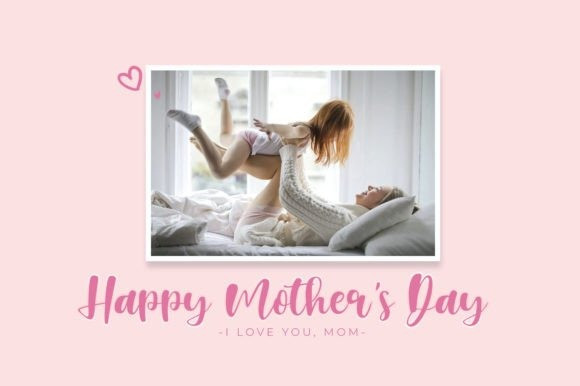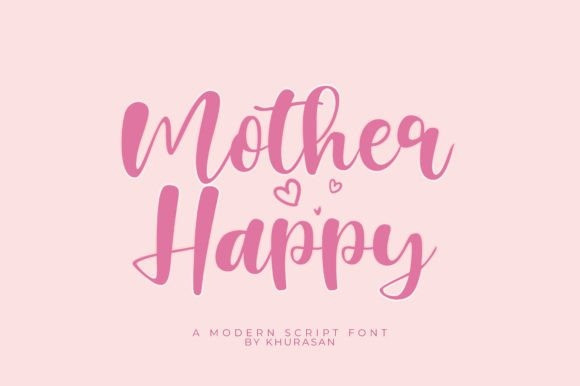
Mother Happy Font
Mother Happy Font is a modern script font perfect for posters, logos, magazines, book covers, banners, and many more! Get this cool font, and use it to create lovely designs. It can easily be matched to an extensive set of projects, so add it to your creative ideas and notice how it makes them stand out!